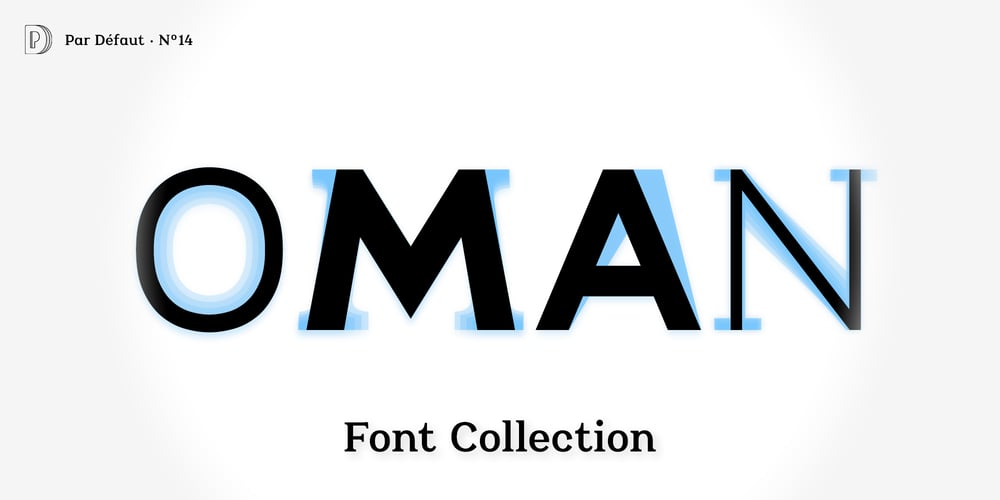
Oman
Oman font
Oman Font Family was designed by Nathanaël Dorange and published by Par Défaut. Oman contains 124 styles and family package options. With five weights and four contrasts, all grouped in three version : sans-serif, slab, serif and all this doubled by a true italic, Oman regroup 120 different styles declined in four variables. Perfect from headlines to text, Oman will meet your needs with a many languages to support (Latin pro, Cyrillic), 14 OpenType features (Fraction, Numerator, Denominator, Tabular figure, Oldstyle figure, Small capital, Small capital from capital, Ordinal, Stylistic set, Case sensitive, Discretionary ligature, Contextual alternate and All access alternate).• Numerator and Denominator includes numerals and currency• Tabular Figure includes : numerals, currency, OldStyle numerals, small capital currency.• Small Capital features includes the Latin & Cyrillic alphabet with the accents.• Ordinal feature includes the Latin & Cyrillic alphabet.• Two Stylistic set for “a” & “g” includes accents.• Discretionary Ligature includes “AE”, “AÉ”, “IJ”,“OE”, available in lowercase, small capital and ordinal.• Contextual Alternate includes ligatures for arrows : <-->^|v|<->v^|.Add n, d or +, for numerator, denominator or case arrows.All Case sensitive characters become after the uppercase and number.